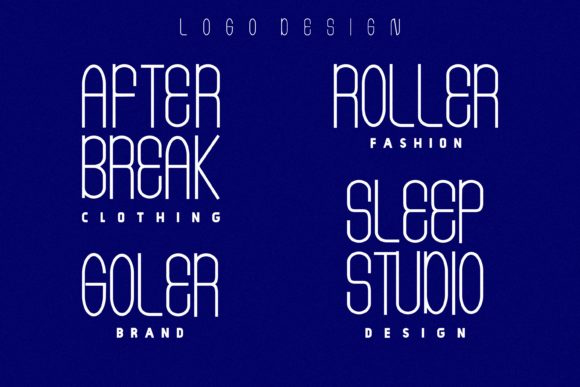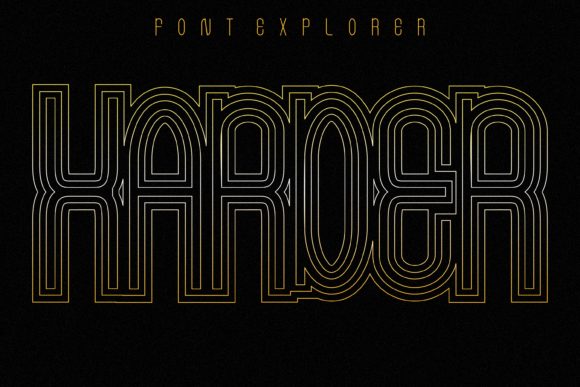
Introduction to Singleader Font
Singleader is a classic display font with a classic feel.
Get inspired by its unique charm, and turn any design project into a stand out .
Singleader Font offers exceptional quality and versatility, making it a valuable addition to your design toolkit. Whether you’re creating for personal projects or commercial use, Singleader Font delivers professional results.